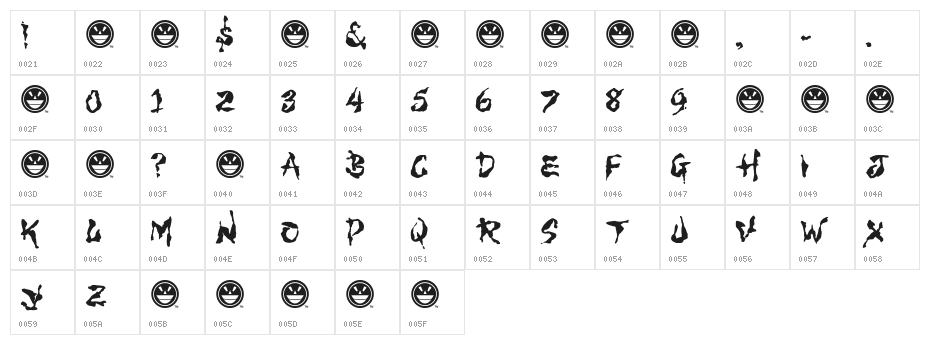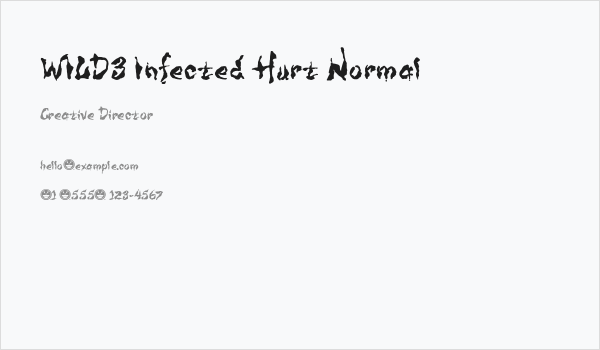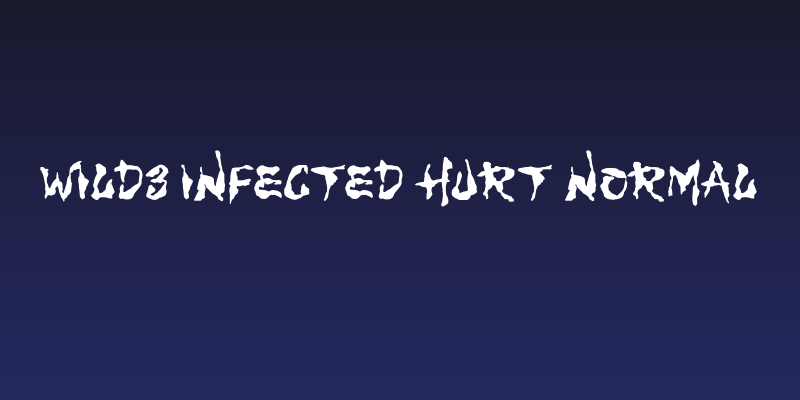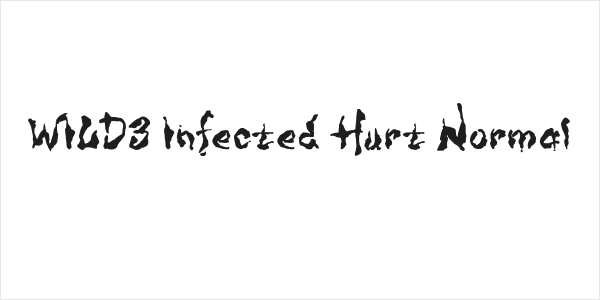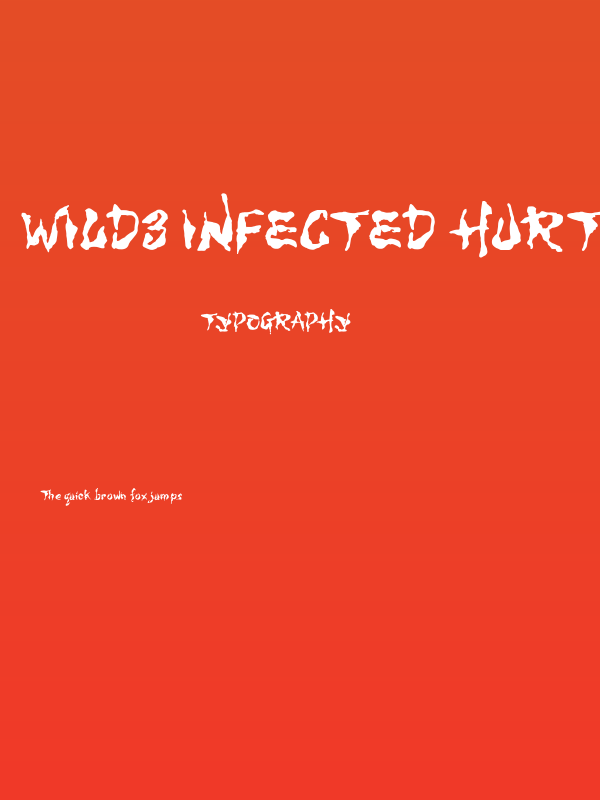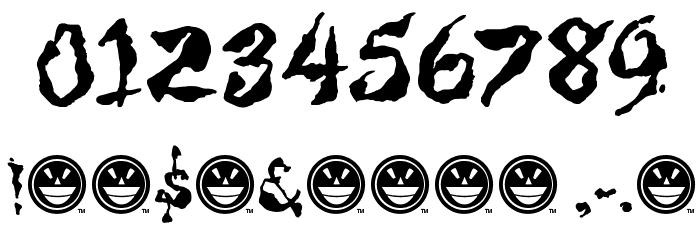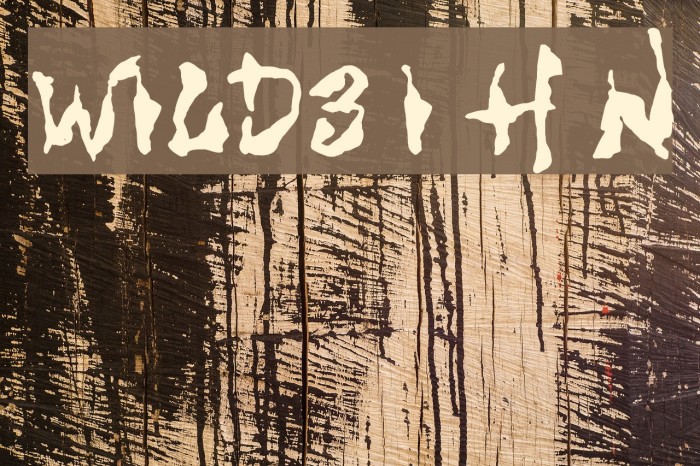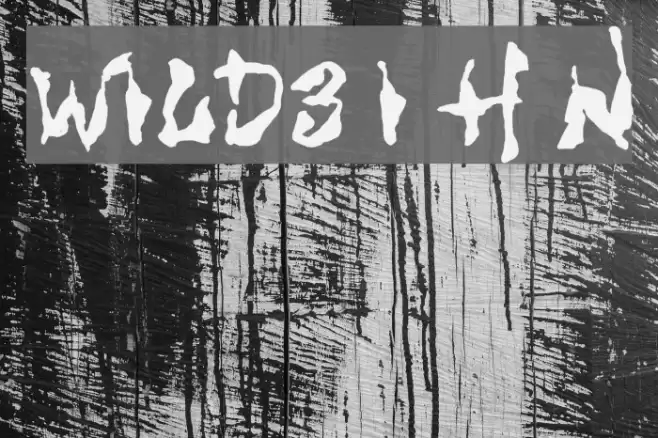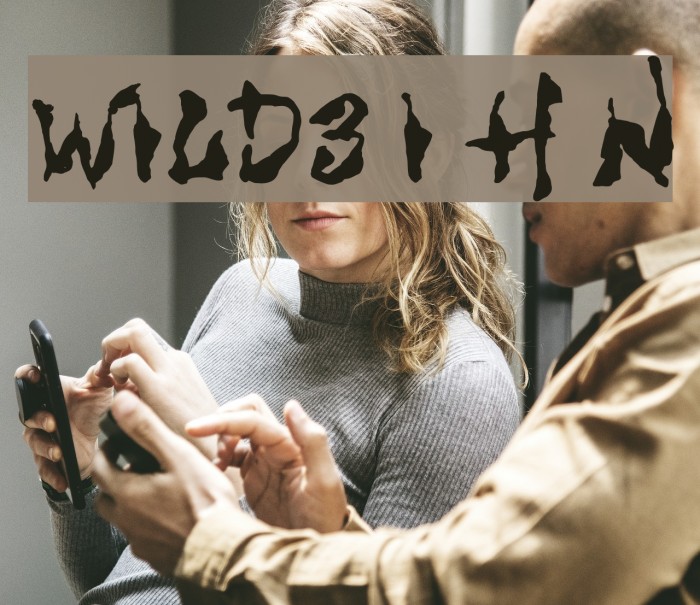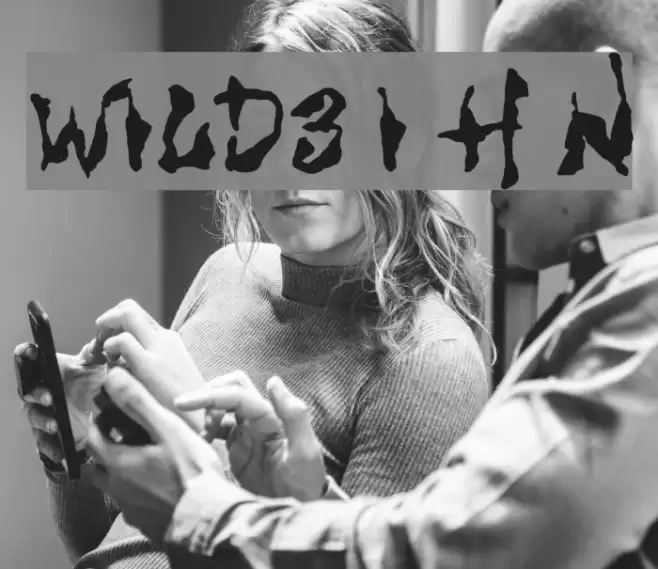
WILD3 Infected Hurt Normal Font
WILD3 Infected Hurt Normal Description
This font features a distressed, grungy style with irregular, jagged edges that give it a raw and edgy appearance. The characters appear as if they have been painted with a brush, with uneven strokes and splatters that add to its chaotic aesthetic. The uppercase and lowercase letters maintain a consistent style, with a slightly wider stance in the uppercase. Numbers and special characters follow the same rugged design, making them visually cohesive with the alphabet. This font exudes a rebellious and unconventional vibe, perfect for projects that require a bold statement.
| Overall Style | Grunge, Edgy |
| Use Case | Headlines, Posters, Album covers |
| Proposed Projects | Ideal for album covers, horror movie posters, street art designs, or any project needing a rebellious and edgy look. |